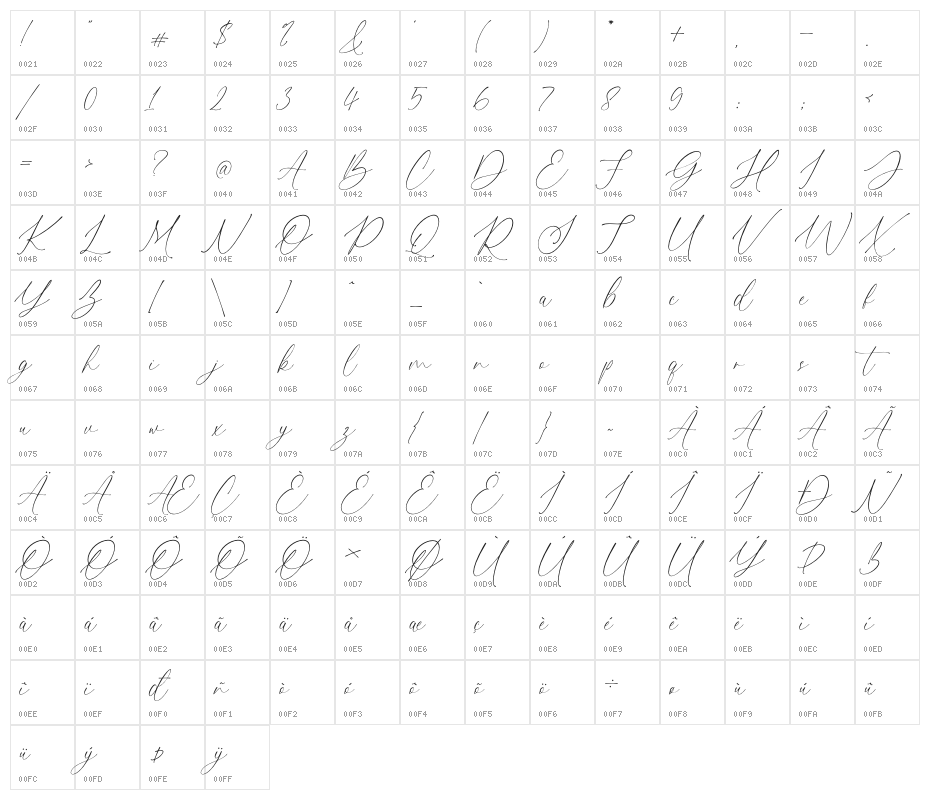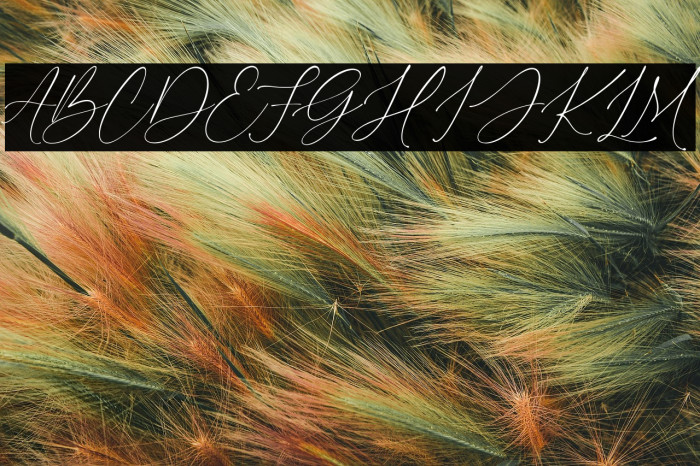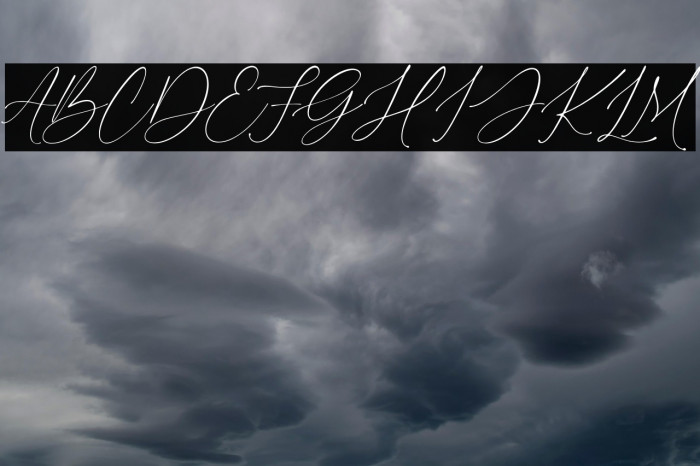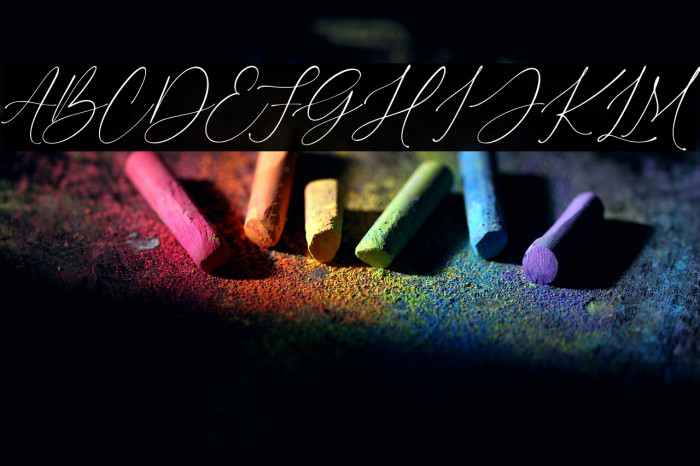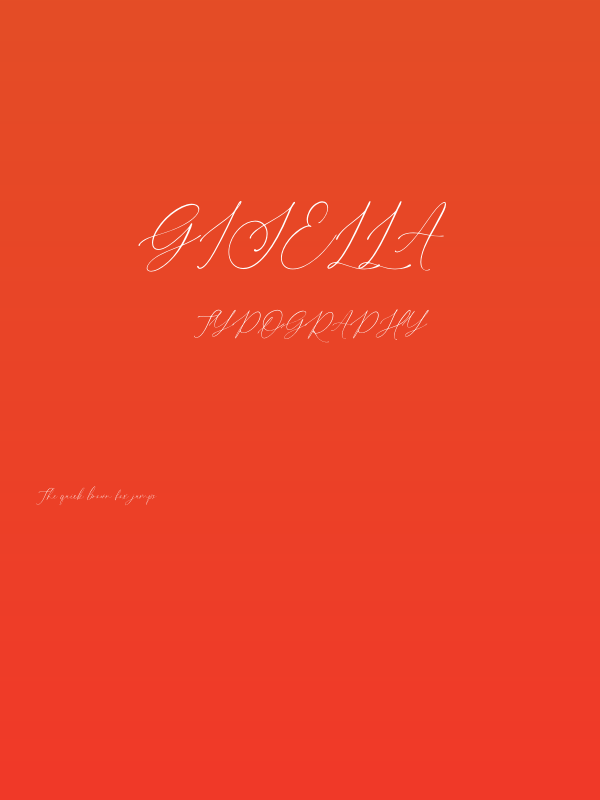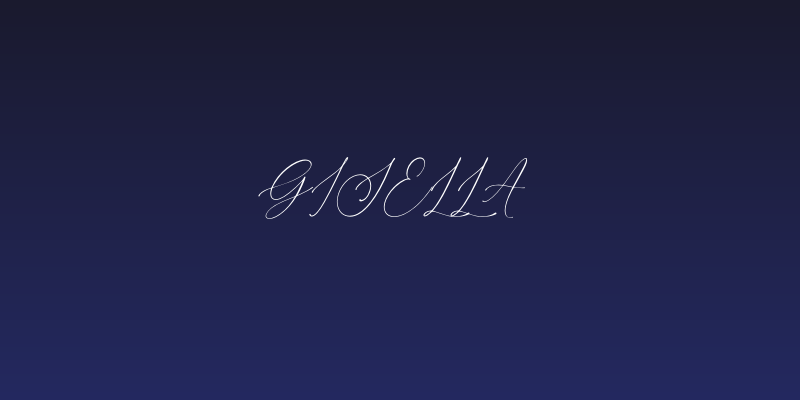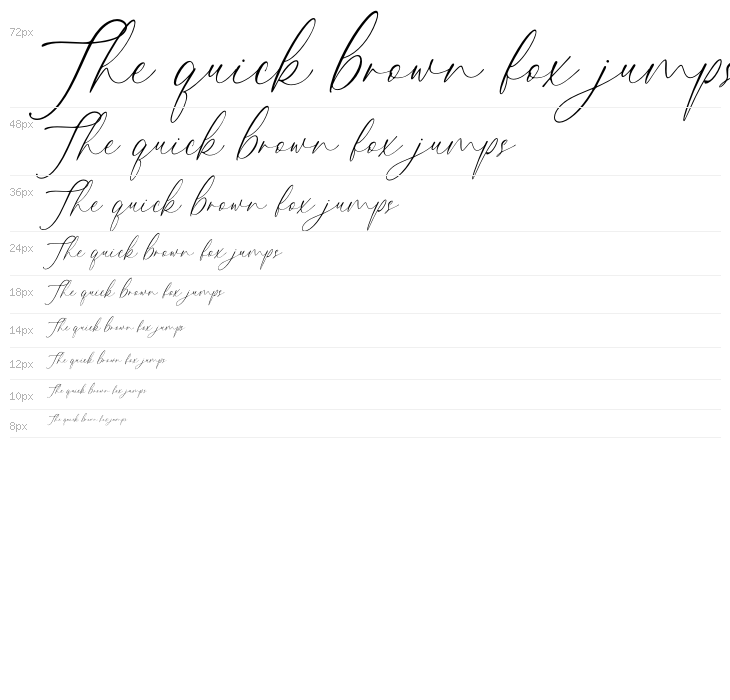
Gisella Font
Gisella Description
Elegant and flowing script font with a handwritten style, featuring delicate and connected strokes.
| Use Case | Logos, Invitations |
| Proposed Projects | Wedding invitations, greeting cards, personal branding. |